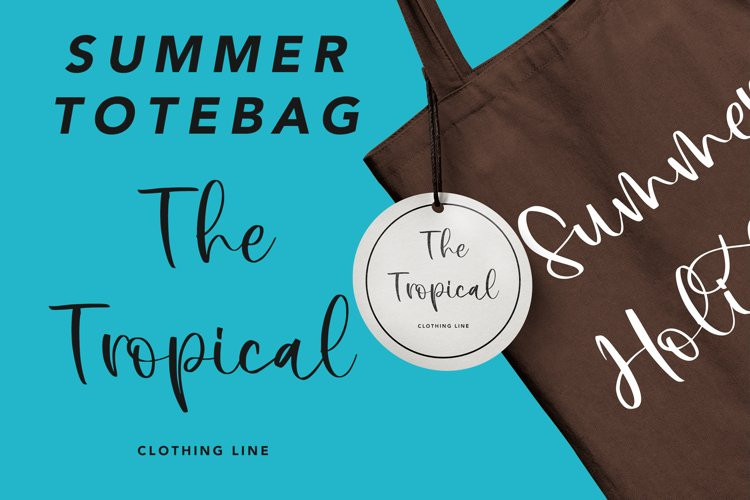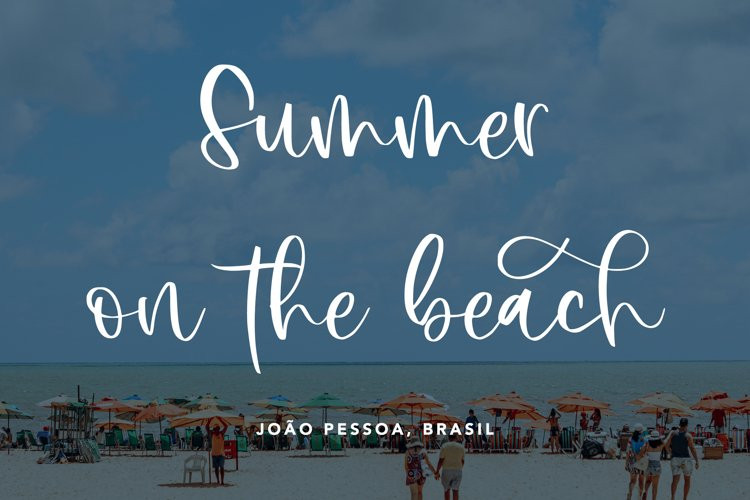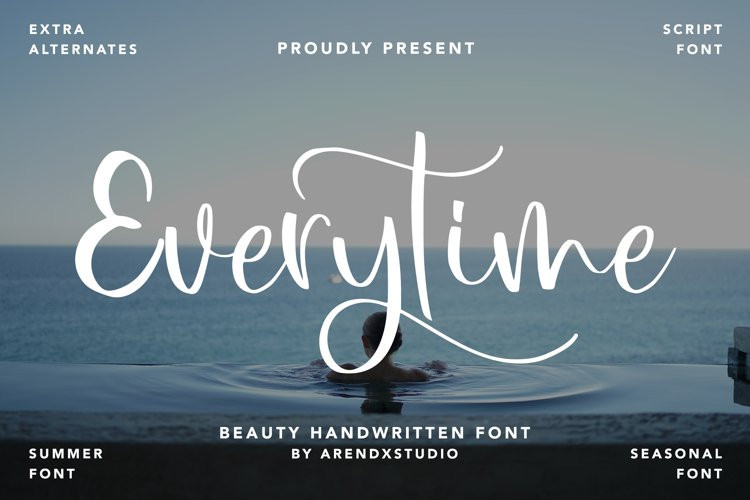
Everytime Font
Everytime – Beauty Handwritten Font is a font with distinctive handwritten characters perfect for branding projects, logos, wedding designs, media posts, advertisements, product packaging, product designs, labels, photography, watermarks, invitations, stationery, and any project who need handwritten dishes.